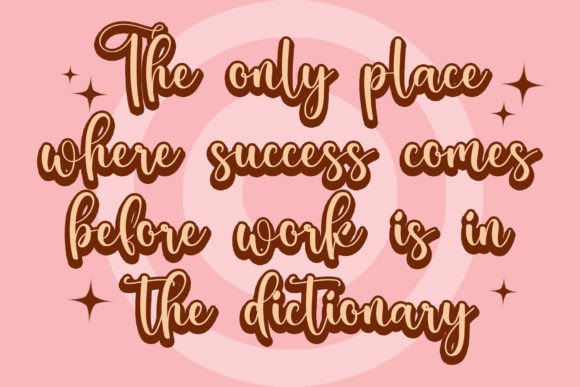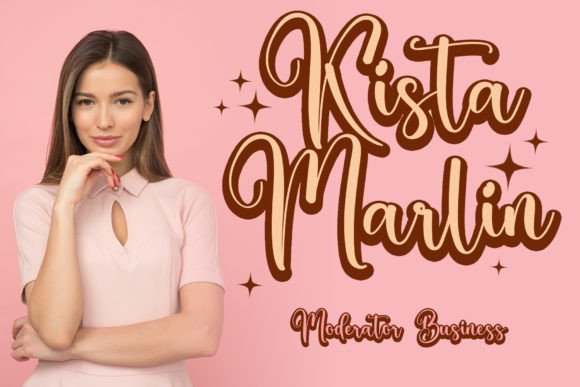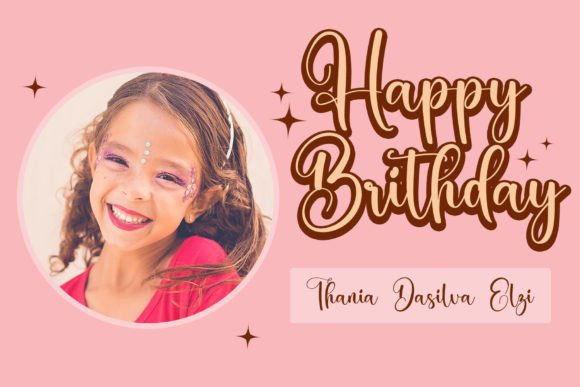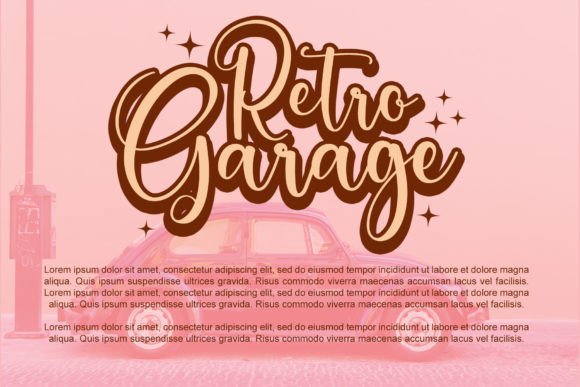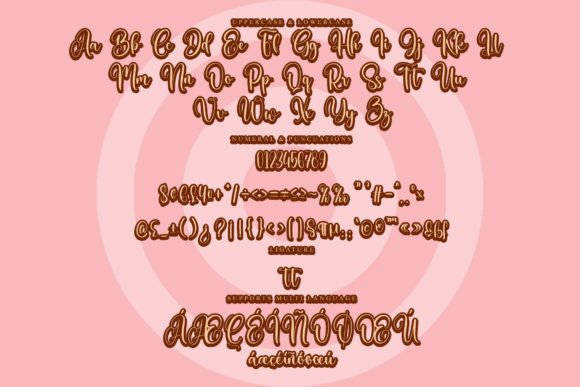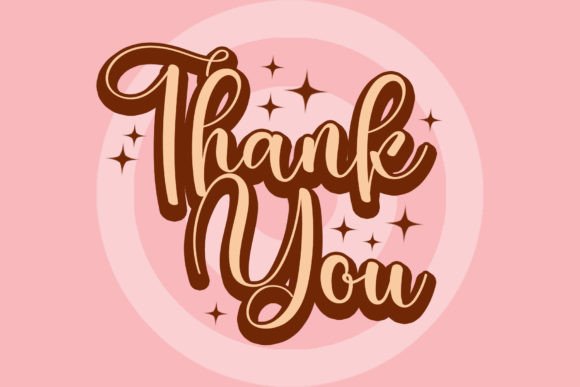
Introduction to Kakita Font
Have you ever found yourself staring at a blank page, surrounded by scraps of paper and a sea of possibilities? That’s where the magic of typography comes in – a single font can transform a design from dull to divine. For creatives, finding the perfect font can be a game-changer, elevating their ideas from ordinary to extraordinary.
Enter the Kakita Font, a stunning, handwritten font designed to add a touch of sophistication to any project. Whether you’re a seasoned designer or a DIY enthusiast, this font is sure to impress. With its elegant, high-quality design, the Kakita Font is the perfect resource for designers looking to take their creative projects to the next level.
Kakita Font
- High-quality design resource ideal for creative projects, including graphic design, digital art, and web design.
- Features a high-resolution design, suitable for use in print and digital applications.
- Includes a range of font sizes and styles, making it a versatile choice for various design projects.
Honest Review: Kakita Font
I recently came across the Kakita Font, a beautiful design resource that caught my attention. This free download is perfect for any creative project that requires a unique touch.
- ✨ High-quality design: The Kakita Font features stunning, high-quality design that’s sure to elevate any project.
- ✨ Transparent background: This feature allows for seamless integration with any background, making it ideal for graphic designers and creatives.
- ✨ Versatile: The Kakita Font is suitable for a wide range of projects, from logos and branding to digital products and marketing materials.
While the Kakita Font is an excellent addition to any design arsenal, there are a few limitations to consider:
- ⚠️ Limited font styles: The Kakita Font is available in a limited number of styles, which may not be suitable for projects that require a wide range of font options.
- ⚠️ Not suitable for complex text: Due to its elegant design, the Kakita Font may not be the best choice for projects that involve complex text or large amounts of text.
Overall, I’m impressed with the Kakita Font and would highly recommend it to designers and creatives looking for a high-quality, unique font to enhance their projects.
Kakita Font
Getting the Most Out of Kakita Font
To get the most out of the Kakita Font, be sure to experiment with different font sizes, colors, and combinations. You can also use the font in conjunction with other design elements, such as images and graphics, to create a unique and visually appealing design.
Common Use Cases for Kakita Font
The Kakita Font is a versatile design resource that can be used in a variety of creative projects, including logos, brochures, business cards, and more. It’s also a great choice for designers looking for a high-quality, free download font with a transparent background.